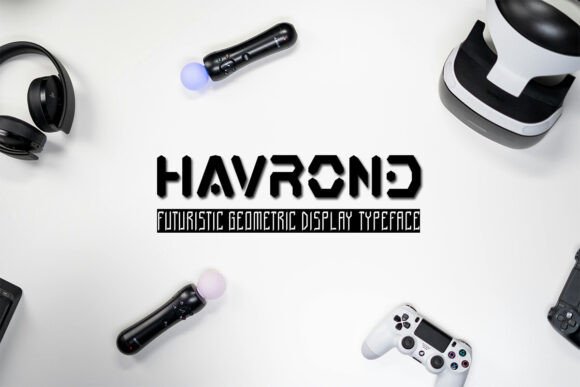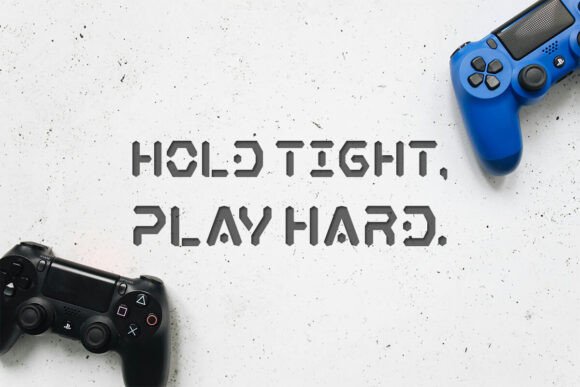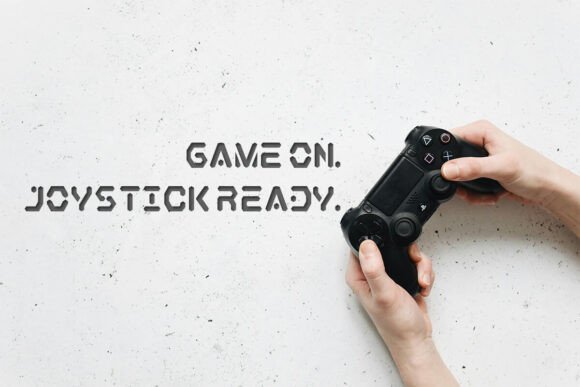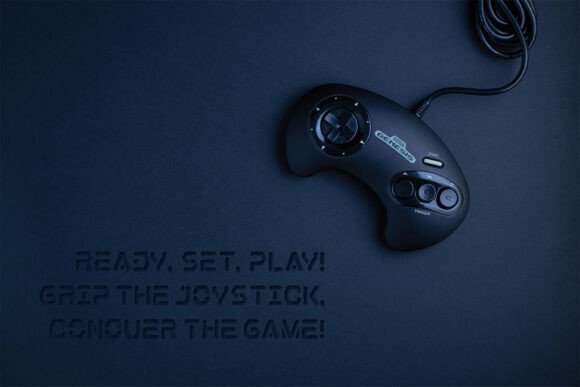
Havrond Font: Bold Display Typography for Tech & Sci-Fi Designs
About the Havrond Font
Meet Havrond Font, a stunning font that brings a touch of elegance and professionalism to any design. Havrond is a bold and angular display typeface built for the future. With strong geometric shapes, sharp corners, and a high-tech vibe, this font captures the spirit of innovation, speed, and modern technology. Every letterform feels engineered — perfect for projects that demand a powerful and futuristic presence. Ideal for tech branding, sci-fi posters, esports graphics, and any design that needs to stand out with a cutting-edge style.
Havrond excels in large-scale applications such as headlines, logos, and short impactful statements. Its strong geometric forms command attention, making it perfect for posters, branding materials for technology companies, and even packaging where a bold, futuristic aesthetic is desired. However, its angularity and weight make it unsuitable for body text or UI elements where readability over extended lengths is crucial.
Pairing Havrond effectively requires considering its sharp, high-contrast nature. A clean sans-serif like Open Sans or a neutral serif like Lora can provide a sophisticated counterpoint, creating a balanced and legible hierarchy. For a more playful yet modern feel, consider pairing it with a rounded geometric sans-serif.
Havrond projects a powerful, assertive personality—modern, technological, and undeniably bold. Its energy is best suited to brands and projects that want to communicate innovation, speed, and a cutting-edge approach.
Havrond Font Usage Examples
Havrond Font Example